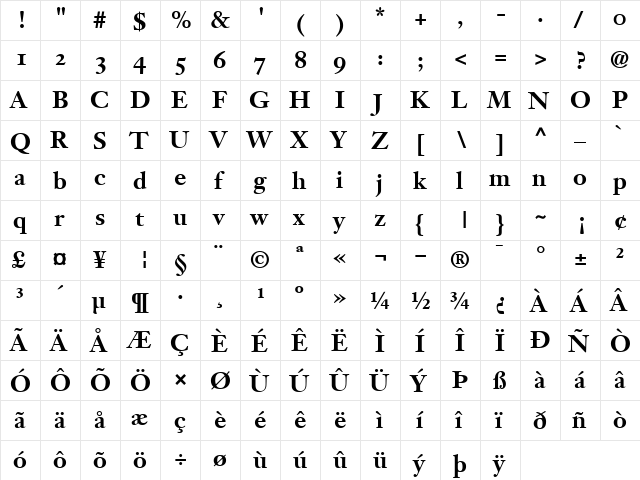
JansonText75OldstyleFigures Bold Font Preview
JansonText75OldstyleFigures Bold
Design Context for JansonText75OldstyleFigures Typeface
JansonText75OldstyleFigures carries the refined structure of traditional serif typography, with bracketed terminals and considered proportions that communicate credibility and craft. Its bold stroke weight gives it real presence on the page.
Pro Tip: Use JansonText75OldstyleFigures for editorial body copy and considered headline work. Pair with a neutral sans for UI elements or captions to create a classic hierarchy.